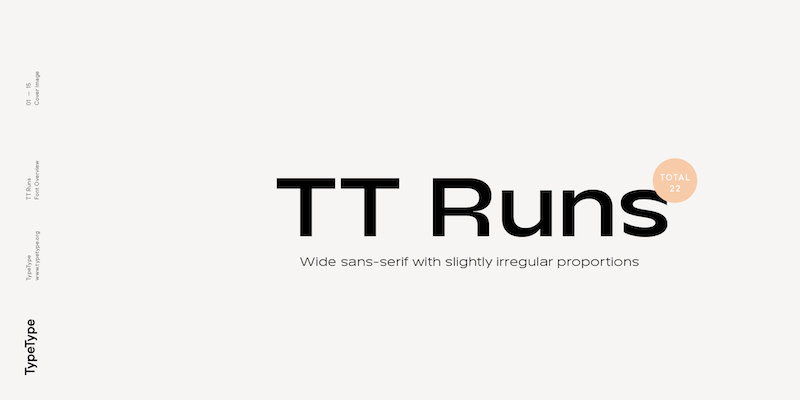
Font name: | TT Runs |
Author: | TypeType Foundry |
Note by TypeType Foundry | |
The TT Runs project started with a fairly simple idea�to create a wide modern sans serif, which will reflect the sporty style and look good on sportswear. Before proceeding to sketching, we examined the theme of Olympic venues and their identities, and also traced the evolution of �sports� typefaces through different eras and continents. In the end, we came up with the idea of making a typeface that is targeted for application to elastic sports outfits or casual sportswear. This decision has greatly influenced the appearance of the wide and slightly stretched proportions in our typeface, the appearance of the reversed contrast of the shape of some characters relative to the vertical line and their deformation, and the overall plasticity of the letters. TT Runs is very versatile: on the one hand, it is a regular sans serif that can be used even in a large text array, and on the other hand, it is a bright display typeface with irregular proportions of characters that looks great even in large headings. --- THIS IS A TRIAL FONT FOR PERSONAL USE ONLY. If you want to use TT Runs in published or commercial projects you will have to buy this font: https://typetype.org/fonts/tt-runs/ --- More TypeType fonts and trials: https://typetype.org/fonts More about licensing: https://typetype.org/licensing Contact us: commercial@typetype.org More... |